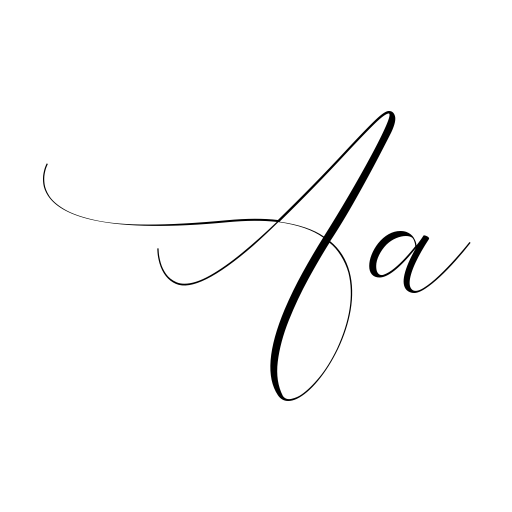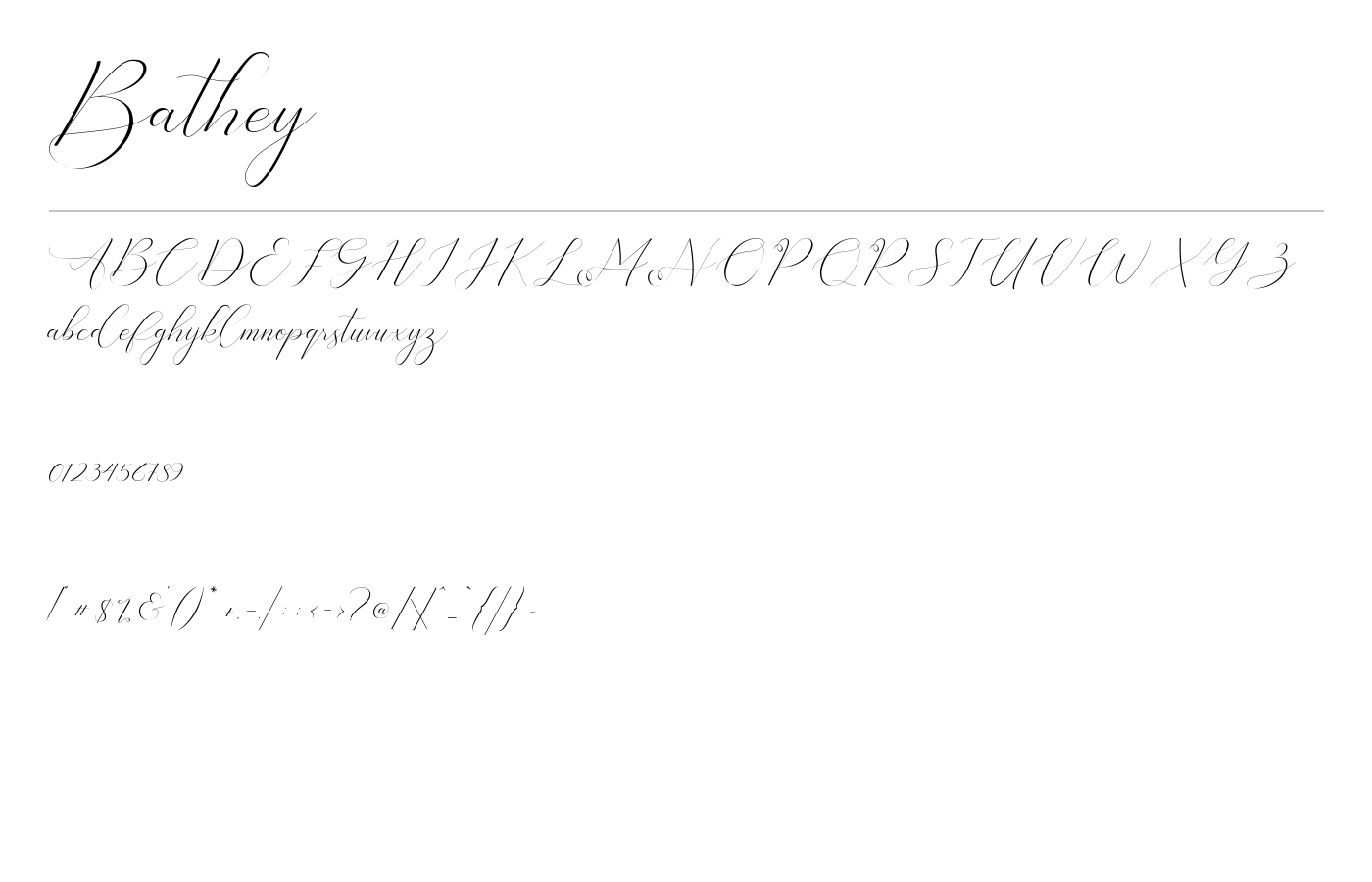
Bathey is an elegant and delicate script font with fine, flowing lines and graceful curves that convey a sense of sophistication and femininity. Its light weight and high contrast strokes create an airy, refined appearance, making it perfect for luxury branding, wedding invitations, and upscale editorial designs where a touch of elegance is desired. Bathey’s stylish calligraphic feel shines in headlines and decorative uses, adding a refined, artistic flair to any project.
Bathey Font